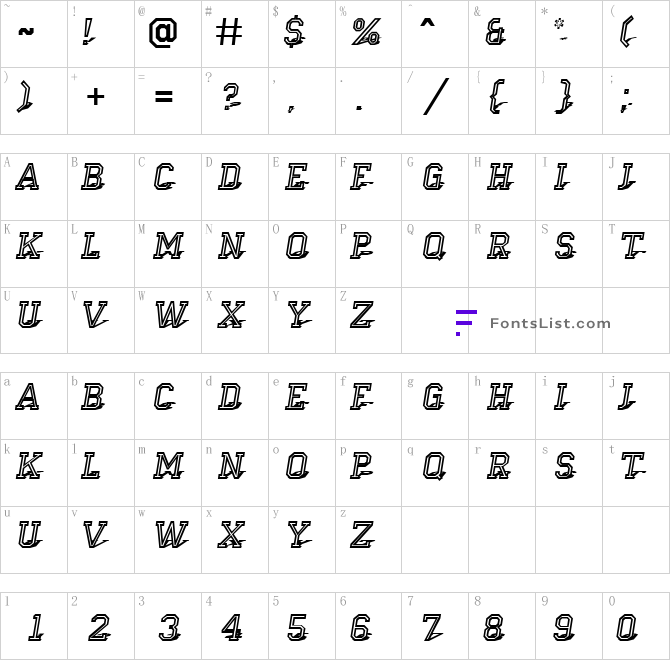
a_CampusOtl3DShad.ttf is a very beautiful artistic font, a_CampusOtl3DShad.ttf is widely used in the design and printing of various books and pictures,a_CampusOtl3DShad.ttf has a strong visual impact,a_CampusOtl3DShad.ttf is a commonly used font in newspapers, magazines and books, and is used in posters, e-commerce Poster design, store design, logo design, font design and other fields.a_CampusOtl3DShad.